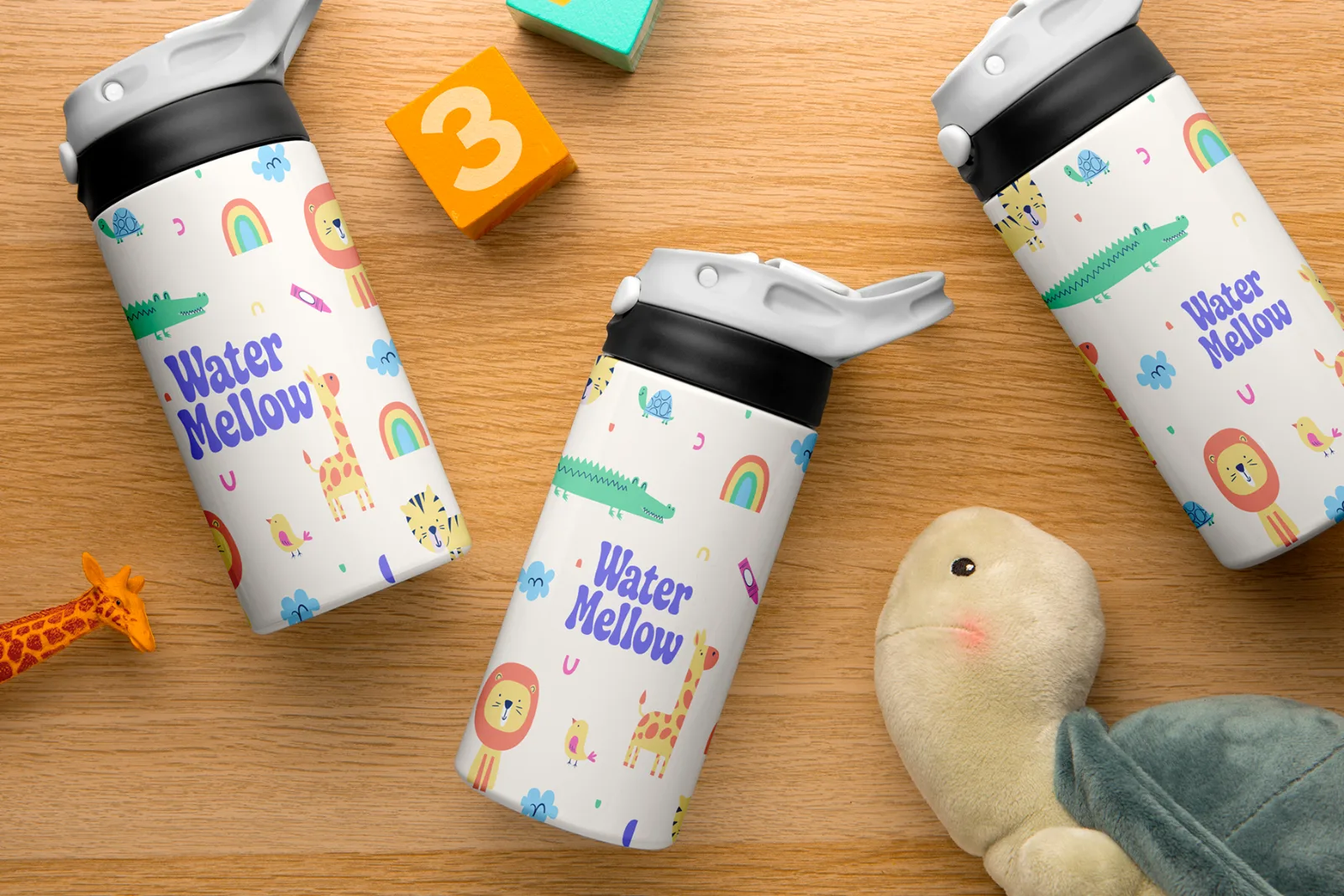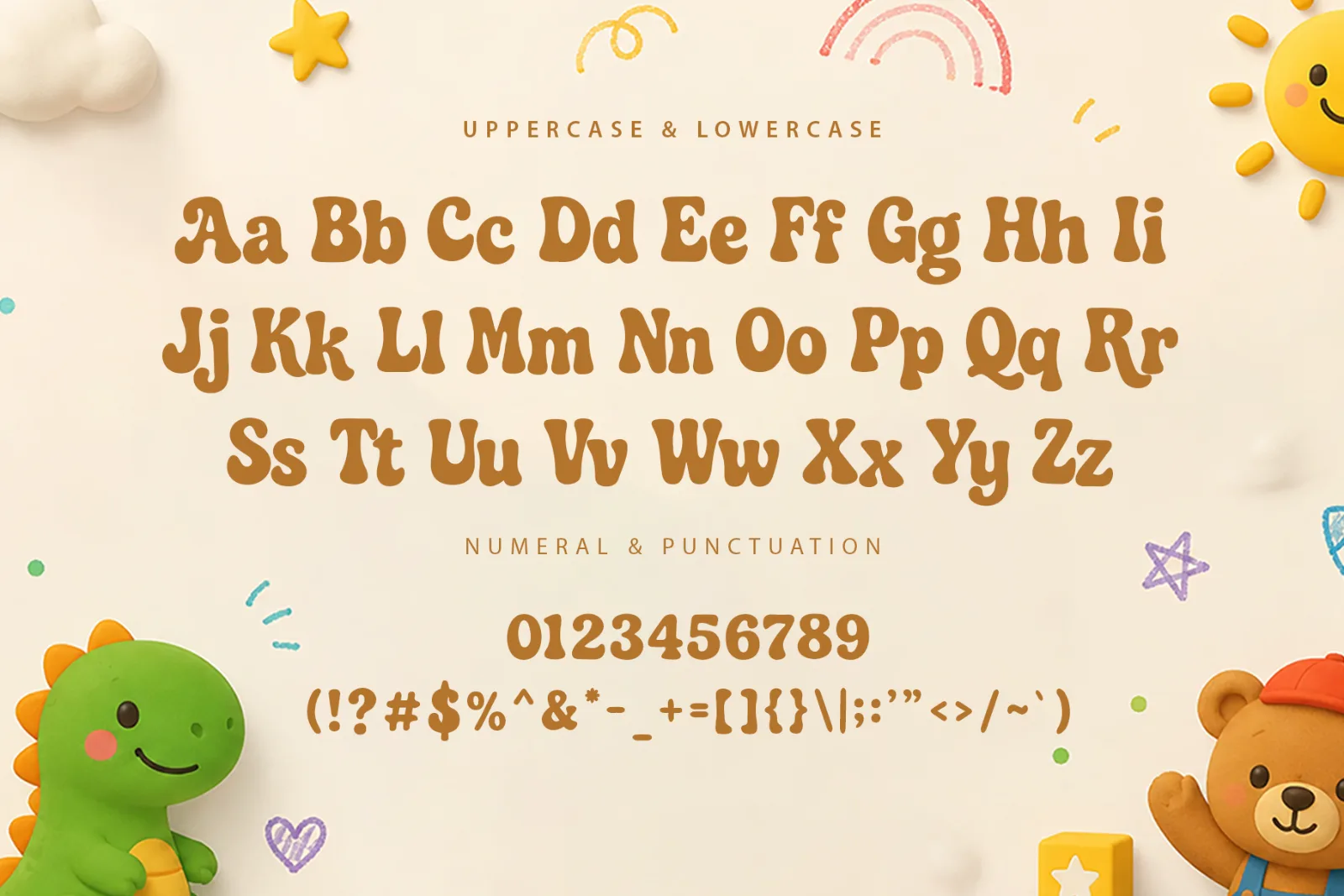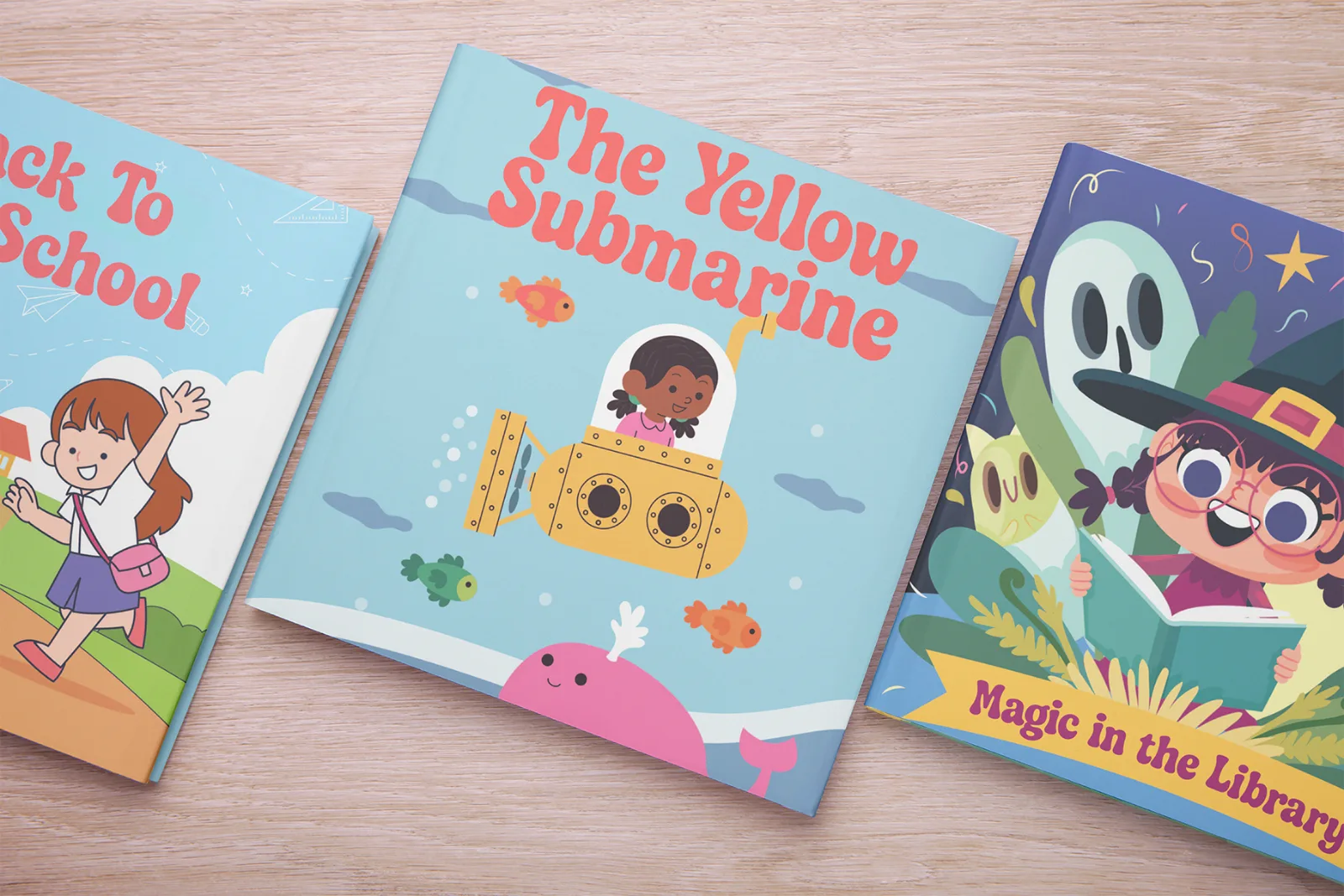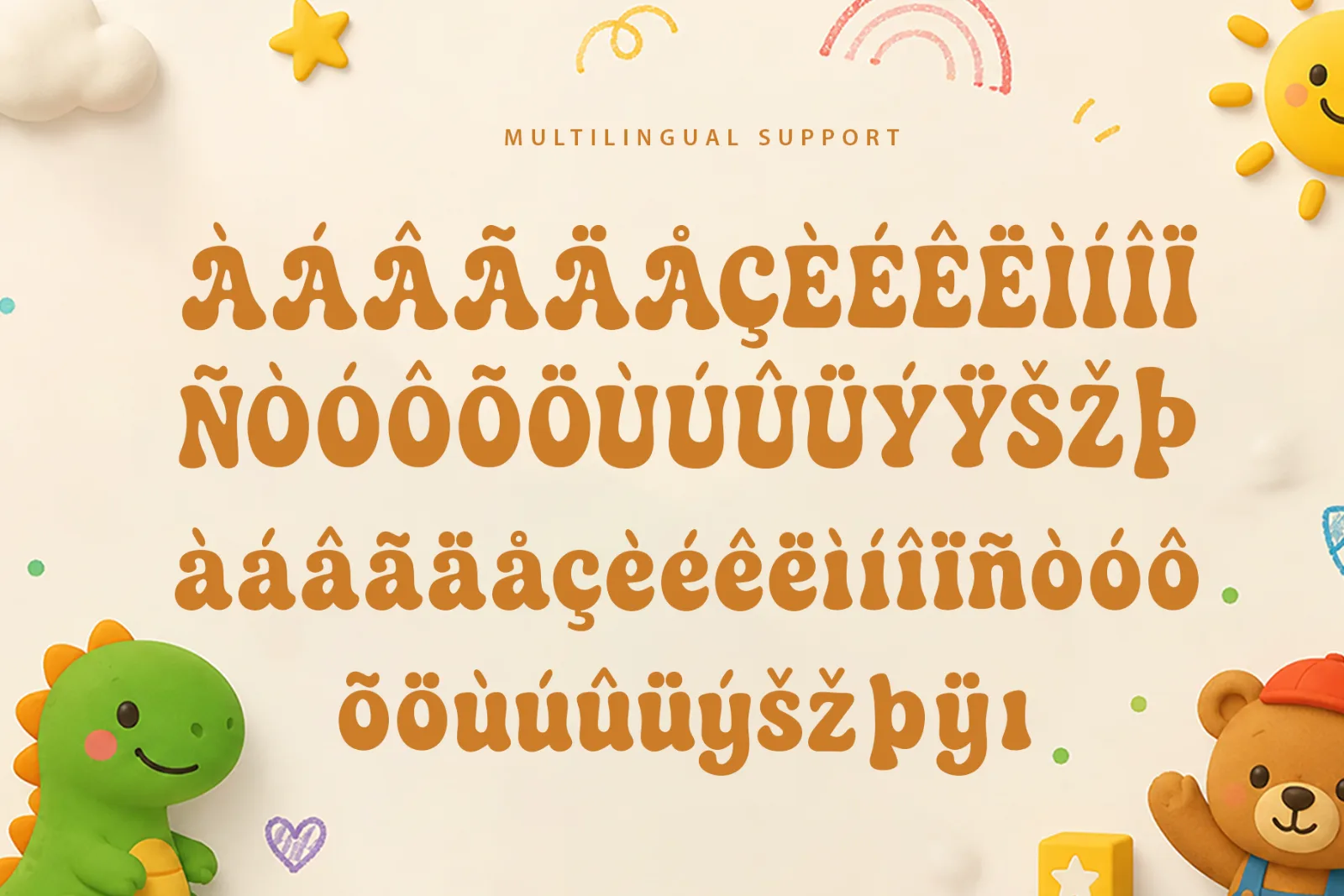
Mellow Pop – Modern Kids Display Font
Mellow Pop is a cheerful modern kids display font featuring soft rounded shapes, playful proportions, and a friendly personality. Its bold and colorful character makes every word feel fun, energetic, and easy to notice.
Designed for children-focused creative projects, Mellow Pop works beautifully for storybooks, educational materials, toy packaging, posters, games, stickers, merchandise, and playful branding.